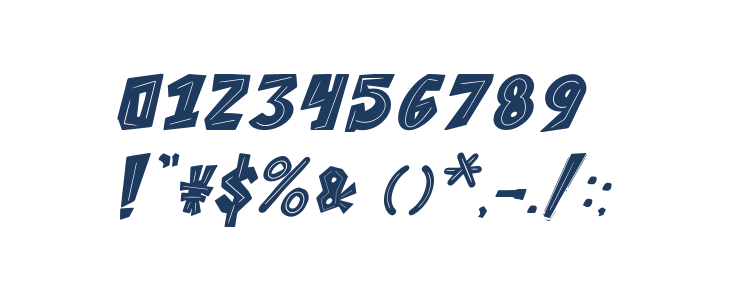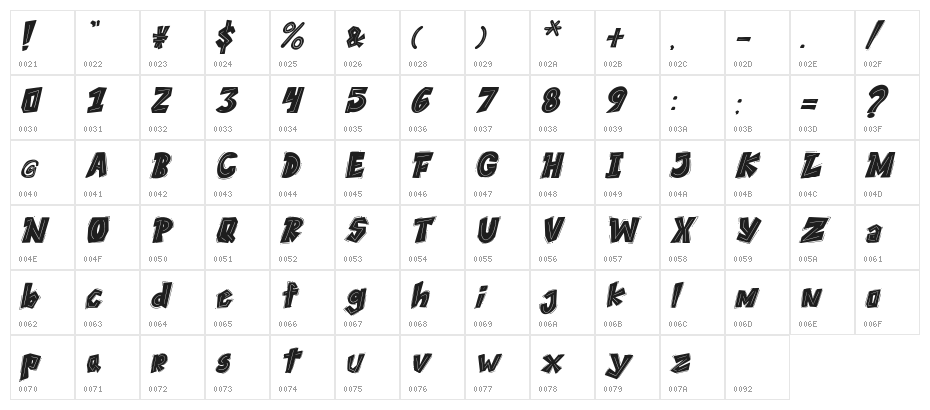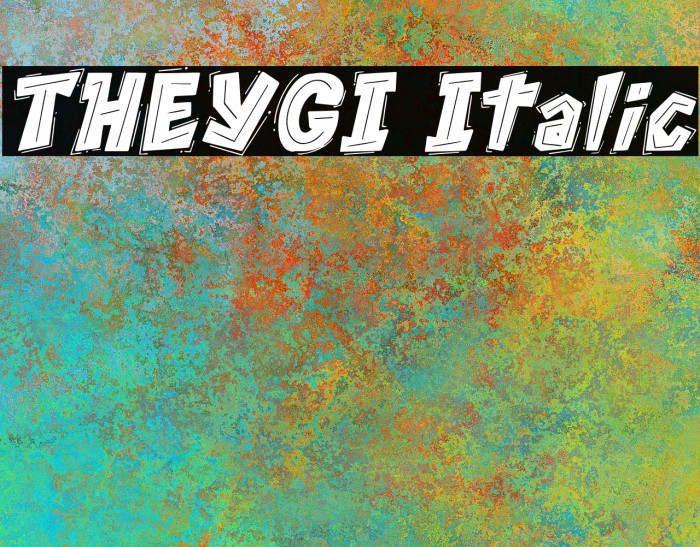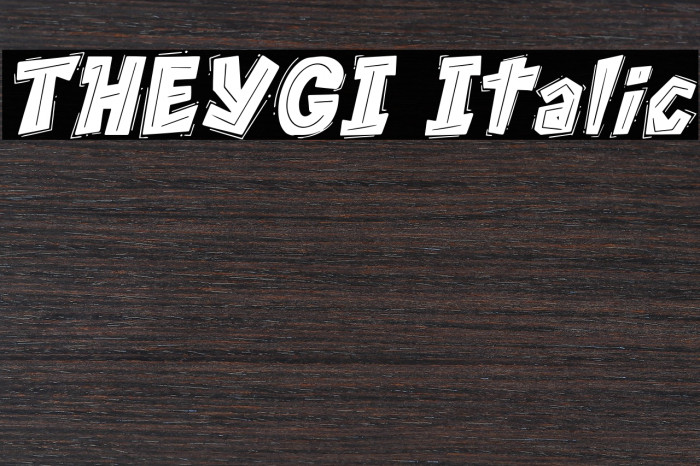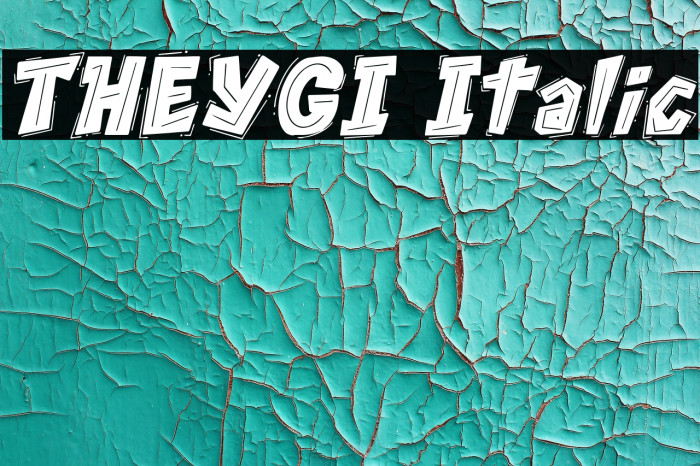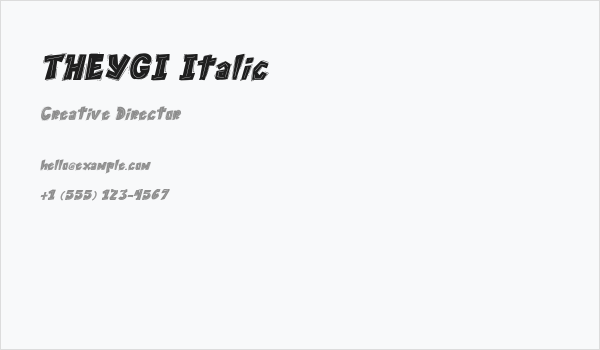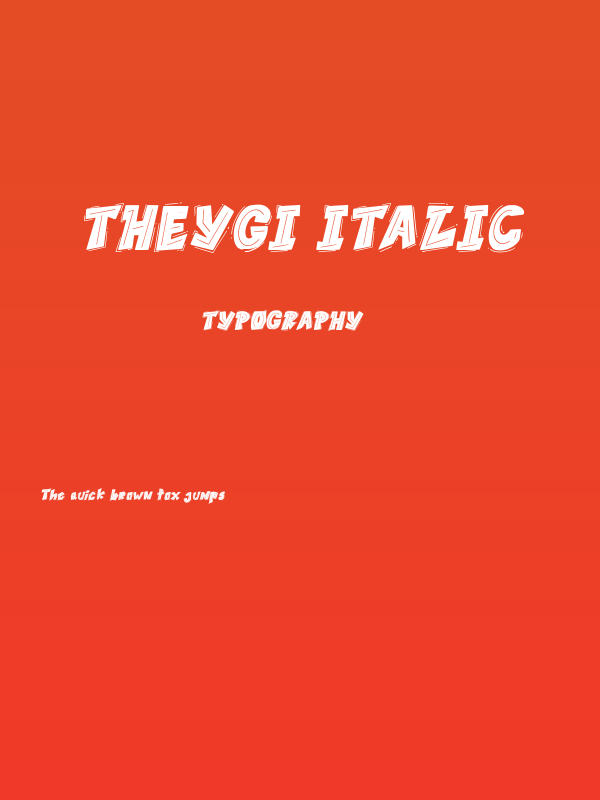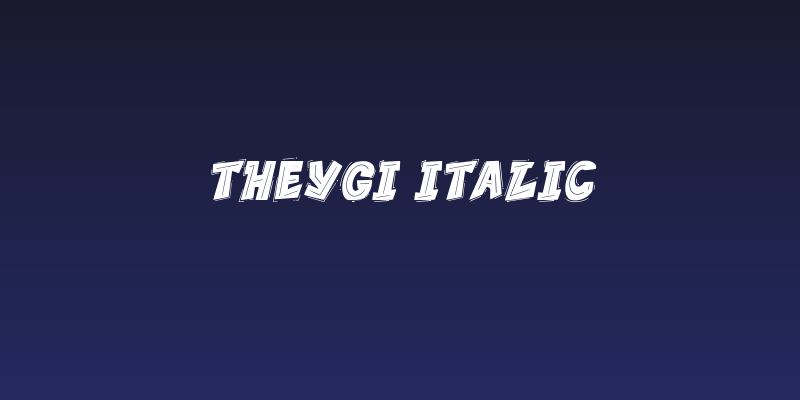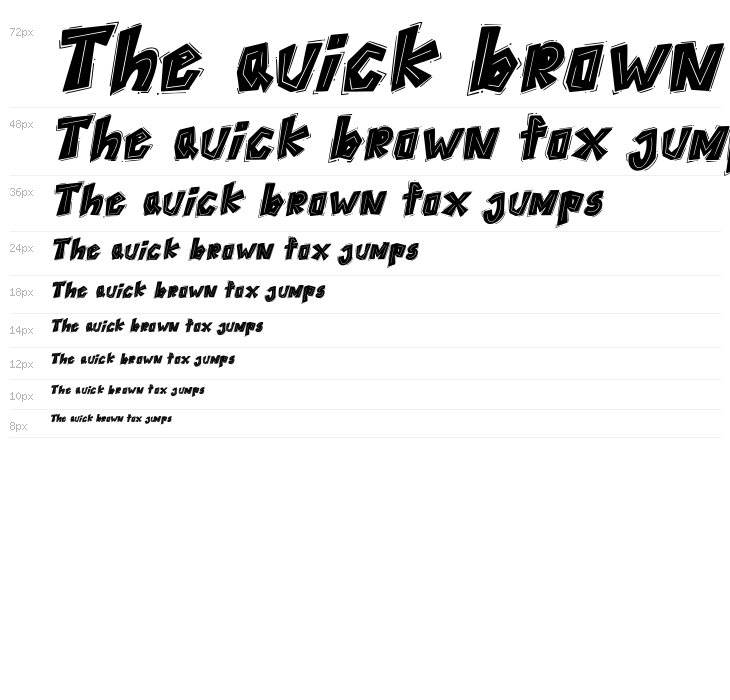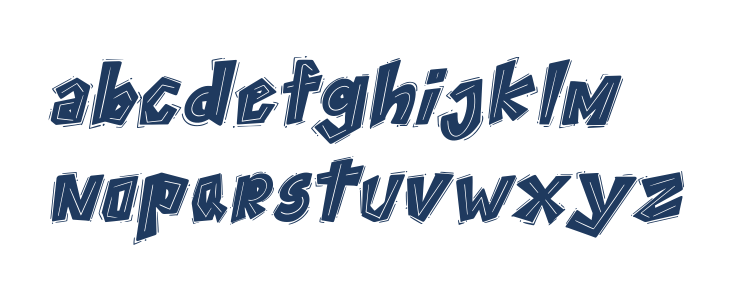
THEYGI Italic Font
THEYGI Italic Description
This font features a bold, dynamic style with a strong italic slant, giving it a sense of movement and energy. The characters are outlined with a thick black border, enhancing their visibility and impact. The strokes are angular and sharp, creating a modern and edgy appearance. The uppercase and lowercase letters maintain a consistent style, while the numerals and special characters complement the overall design. This font's unique aesthetic makes it stand out, suitable for projects that require a bold statement.
| Proposed Projects | Ideal for posters, logos, and headlines that need a bold and energetic look. |